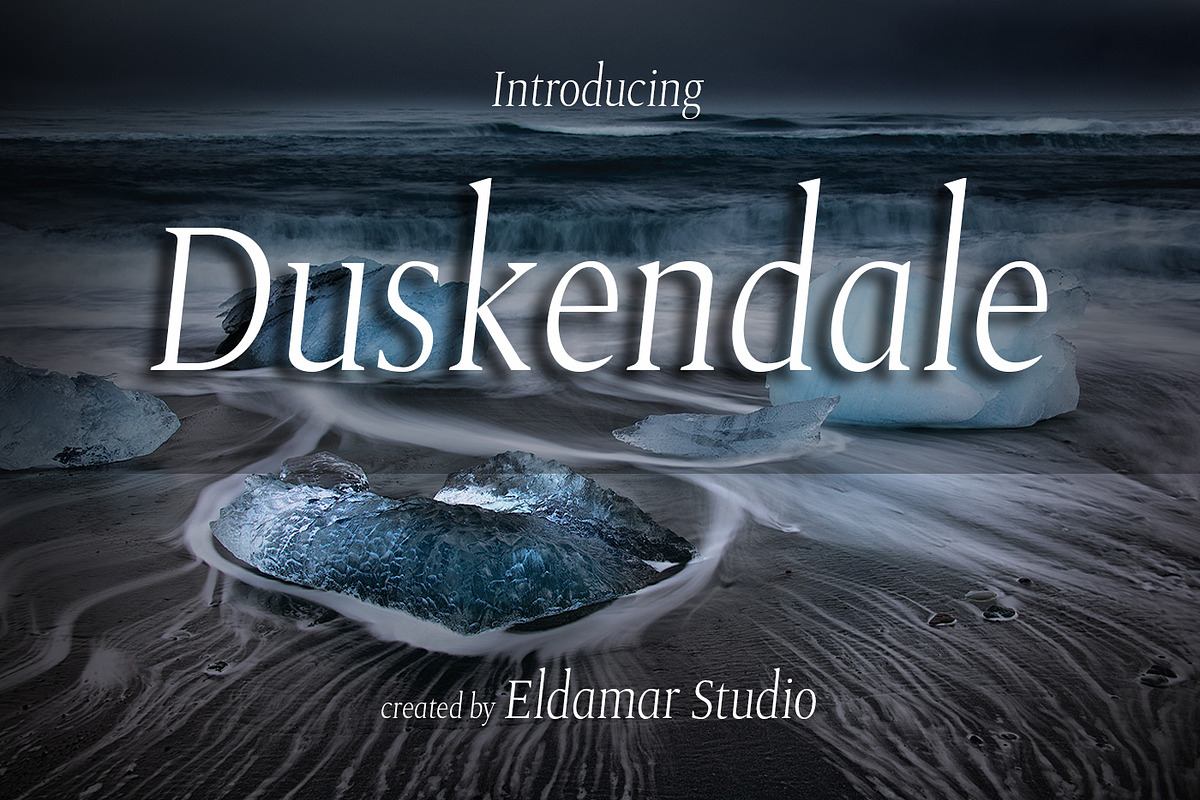
Step into a world of vintage charm and timeless elegance with Duskendale Font Free Download. This classic serif typeface brings a refined, historical touch to your designs, perfect for book covers, editorial layouts, branding, and wedding invitations. With its elegant curves and high-contrast strokes, Duskendale evokes a sense of tradition while maintaining a modern, professional edge.
Whether you're crafting a heritage logo, designing upscale packaging, or working on literary-themed projects, Duskendale gives your typography a distinguished presence. The font includes uppercase and lowercase characters, punctuation, and multilingual support—making it an excellent choice for mockups and personal design tests.